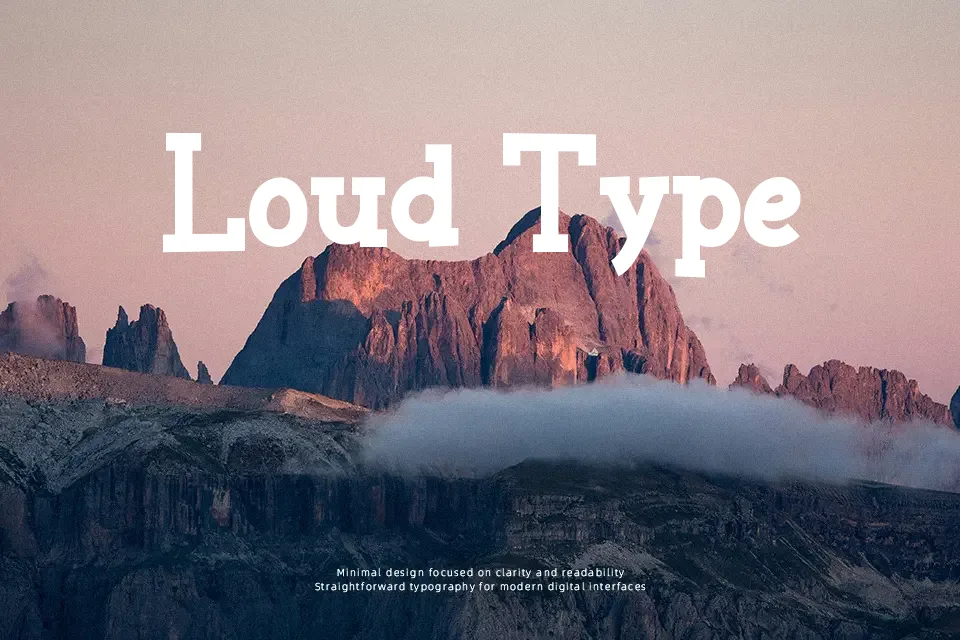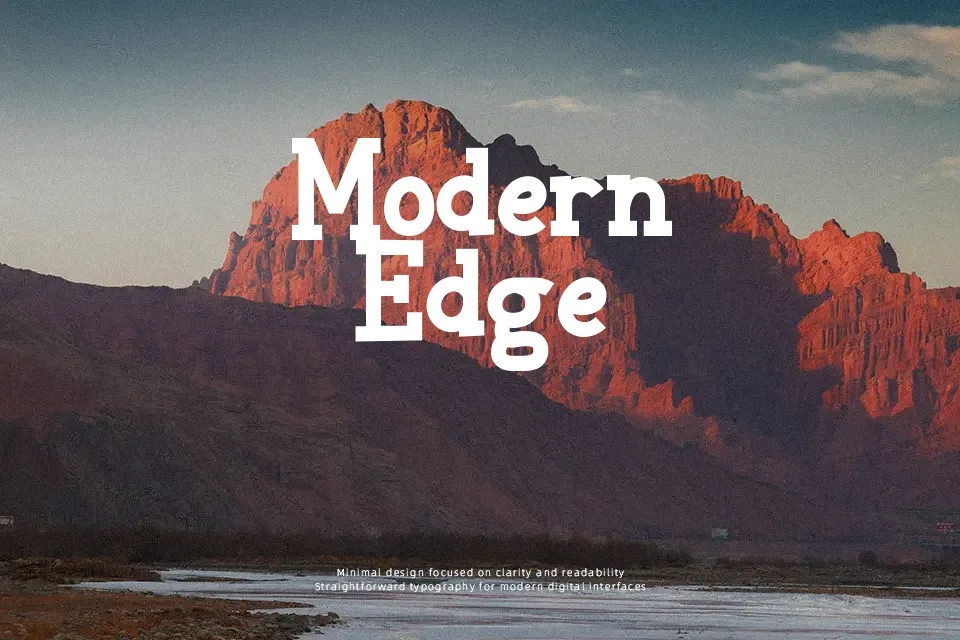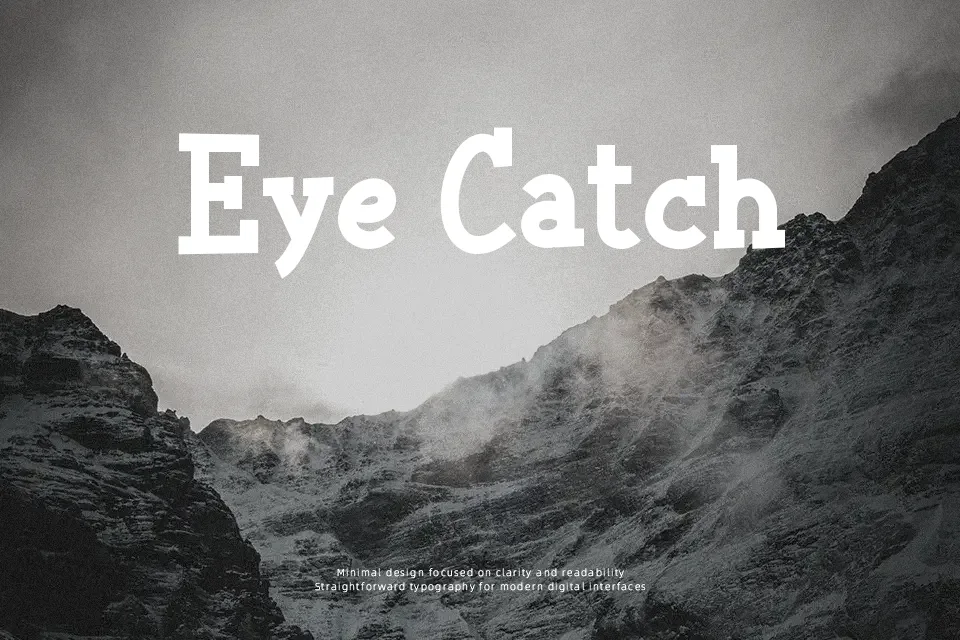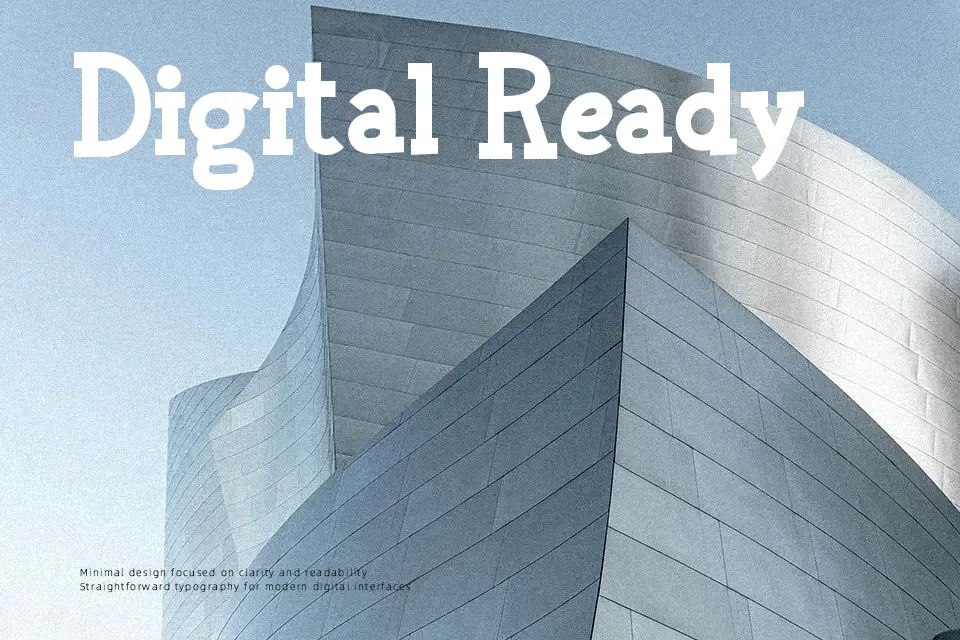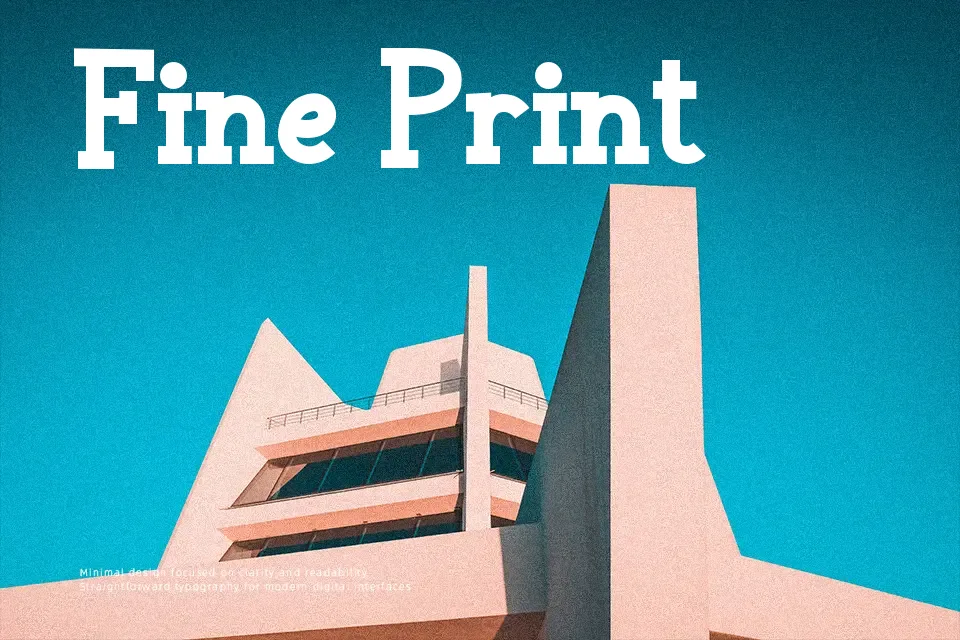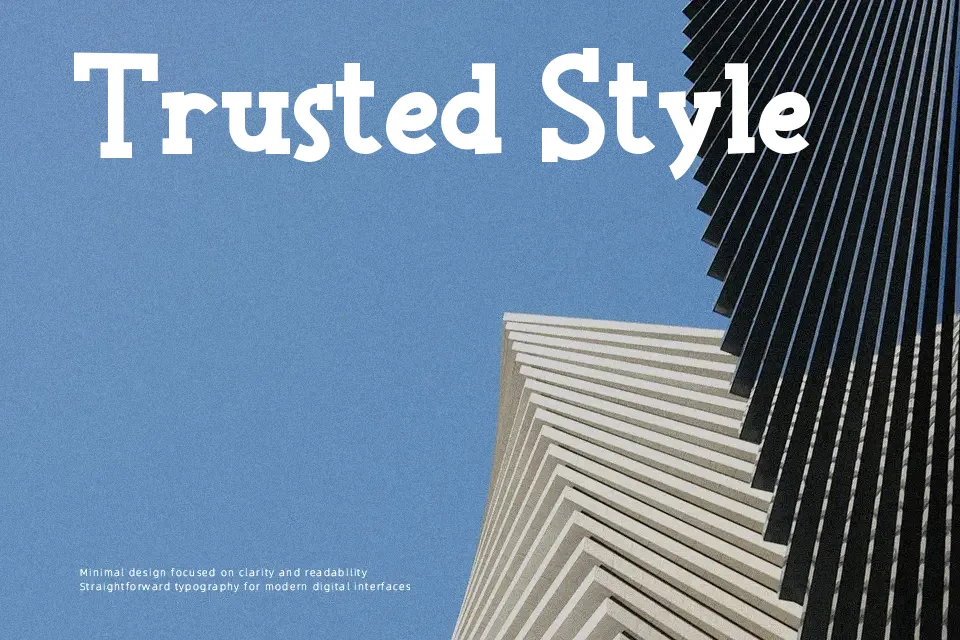
Adventure Land Font
Designed by RaisProject
Adventure Land leans into thick, irregular strokes with a loosely structured baseline that gives each letter a sense of momentum. The letterforms feel hand-drawn rather than mechanically constructed, with subtle stroke variation that adds character without crossing into full calligraphic territory. It works best in large-format settings — event banners, theme park graphics, or children’s media titles — where its expressive weight reads as energy rather than chaos. At smaller sizes, legibility drops noticeably, and the informal construction makes it a poor fit anywhere a neutral or authoritative tone is expected. The font carries personality confidently, but that same personality becomes a limitation when the design calls for restraint.
– Children’s book cover titles and chapter headers
– Amusement or theme park promotional graphics
– Adventure-themed game UI titles and loading screens
– Festival or outdoor event signage
– Body text or extended reading at small sizes
– Corporate or professional branding contexts
– Multilingual layouts requiring consistent spacing
– Minimalist or editorial design projects
Perfect for gaming, holiday, and kids, with a bold and cartoon style.